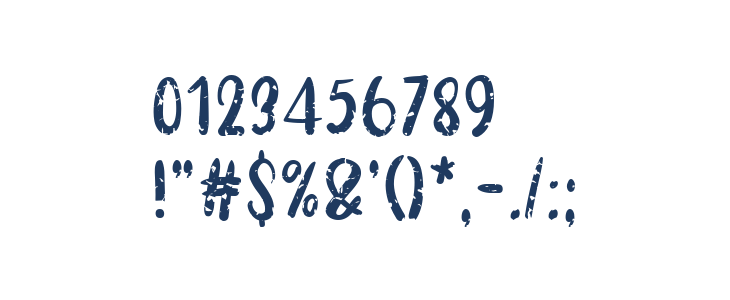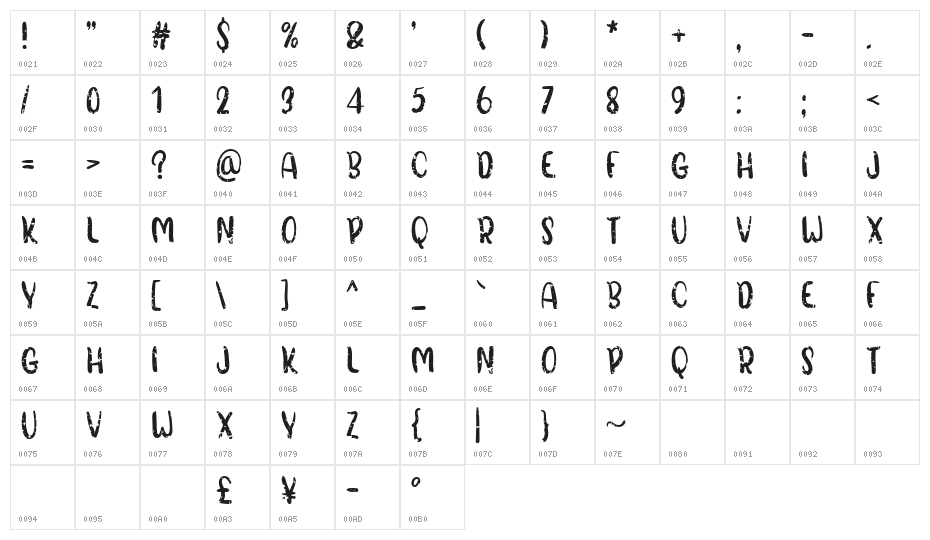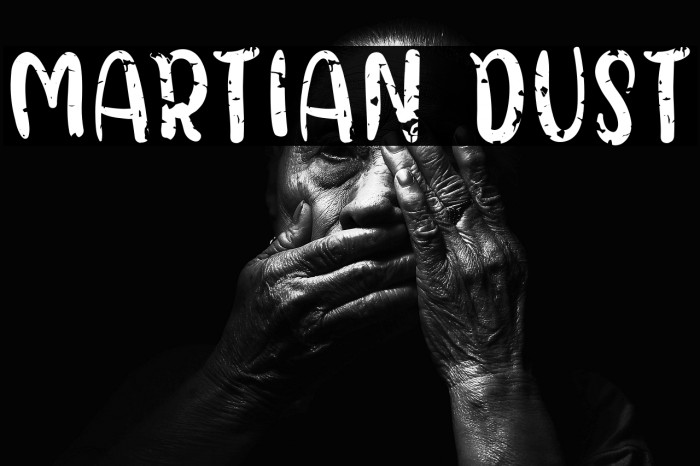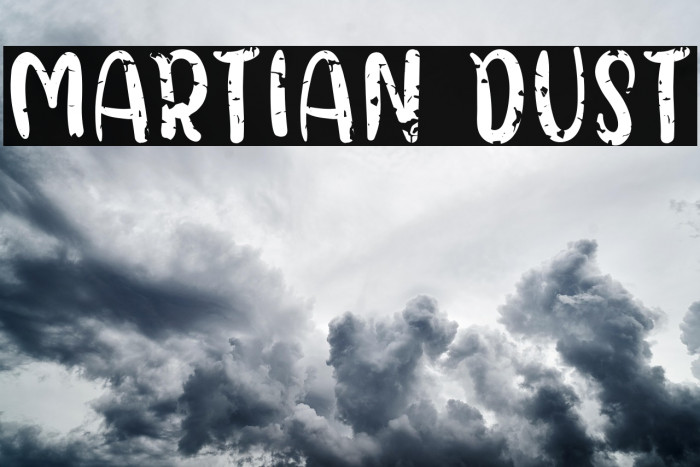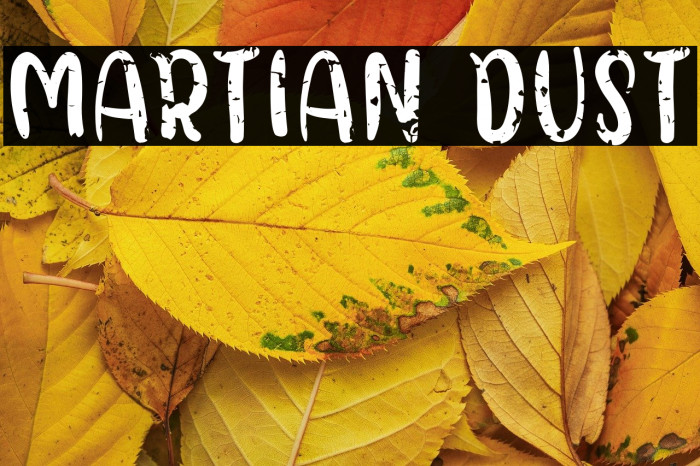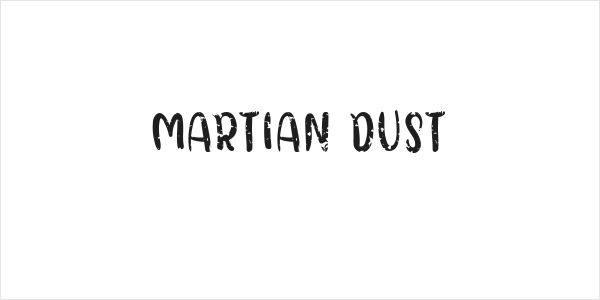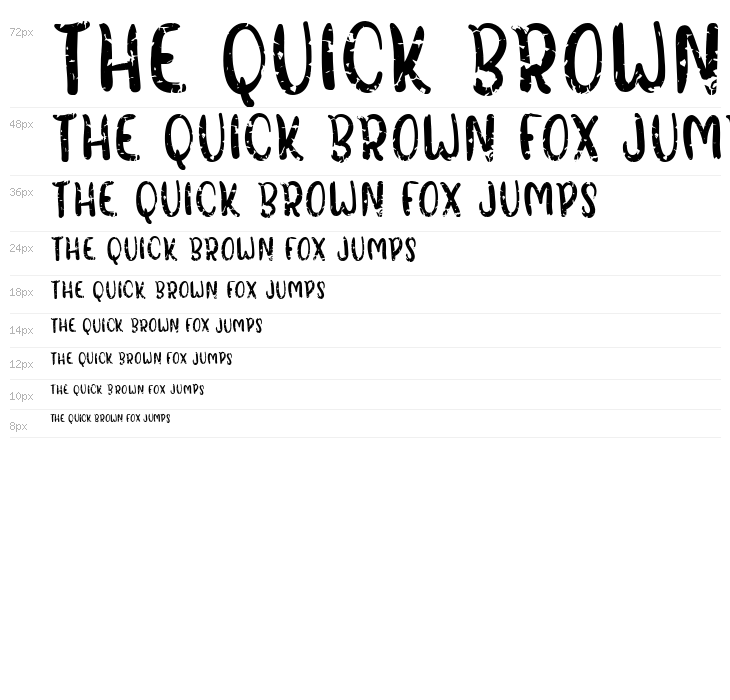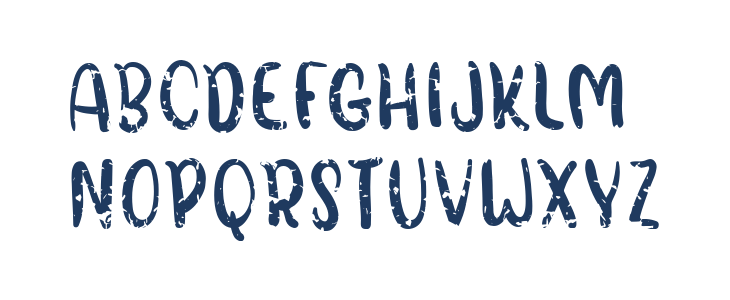
Martian Dust Font
Martian Dust Description
This font features a bold, distressed style with a rough, textured appearance that gives it a rugged, organic feel. The characters are slightly irregular, adding to the hand-crafted aesthetic. The uppercase and lowercase letters maintain a consistent height, while the numbers and special characters follow the same distressed pattern. The font's unique style makes it stand out, with each character appearing as if it has been weathered or eroded over time, providing a sense of depth and character.
| Proposed Projects | Ideal for projects requiring a grunge or vintage look, such as posters, album covers, or branding for outdoor or adventure-themed products. |